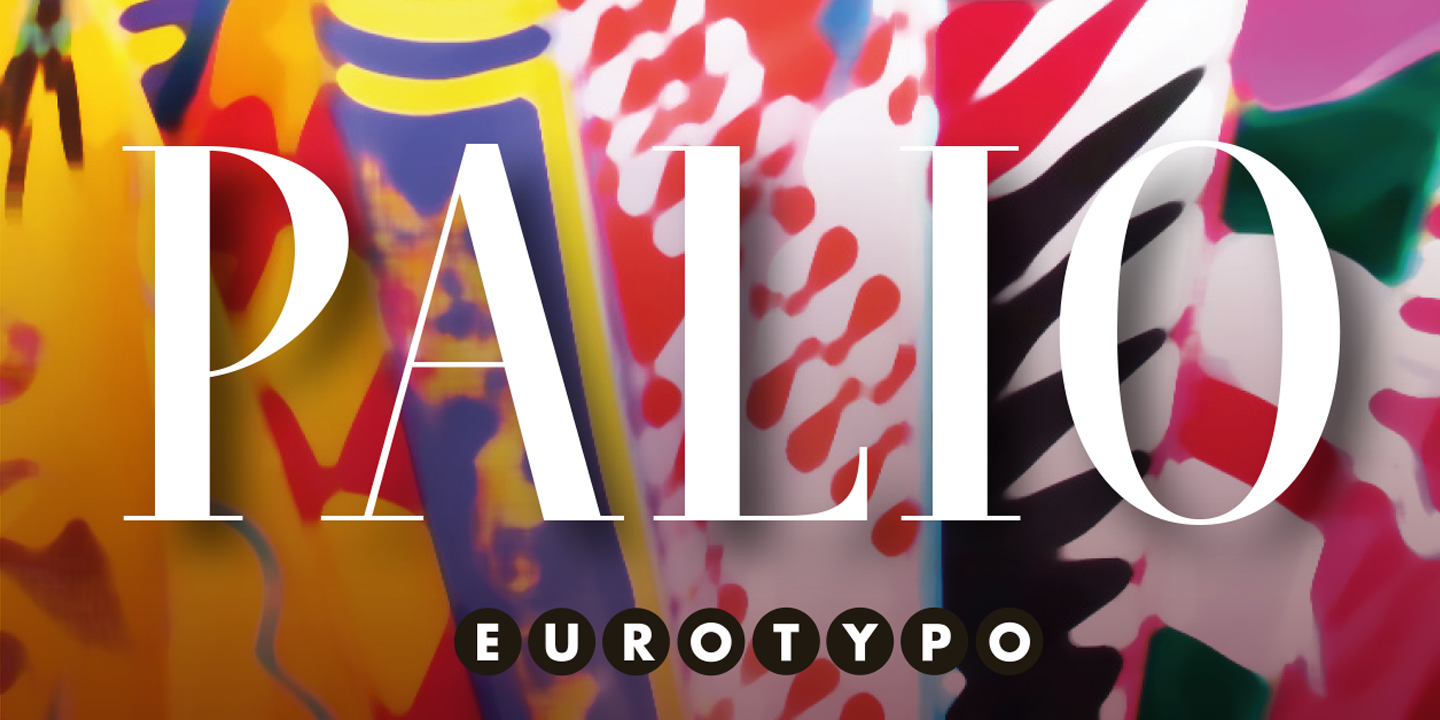
Palio Font Free Download is a sophisticated and elegant serif typeface that brings timeless beauty and professionalism to any design project. With its classic letterforms and refined details, this font is perfect for branding, editorial layouts, packaging, wedding invitations, and luxury product designs. Palio Font captures a sense of tradition while remaining versatile for modern applications.
With Palio Font Free Download, you’ll get a complete set of uppercase, lowercase, numbers, and essential punctuation, making it suitable for a wide range of creative uses. Whether you’re designing a magazine cover, a high-end logo, or a formal invitation suite, this font provides excellent readability and a touch of class. Its balanced proportions and subtle curves enhance both display and body text designs.
Elevate your creative projects with the timeless elegance of Palio Font Free Download. Its classic yet contemporary style will help your work stand out with sophistication, making it a valuable addition to your font collection.